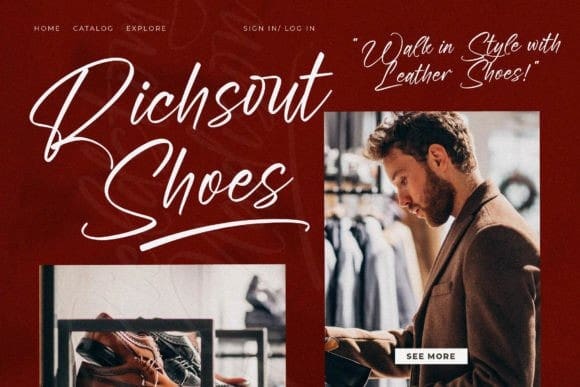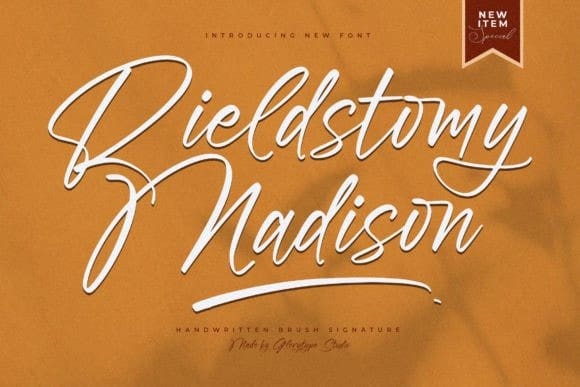
Rieldstomy Madison Font
Rieldstomy Madison Font is a stylish and incredibly elegant handwritten font. It is defined by smooth curves and is perfect for fashion branding or editorial designs. Use this font for your designs and explore its endless possibilities.